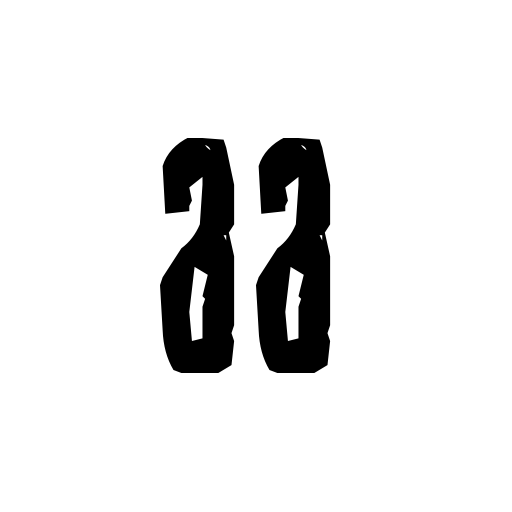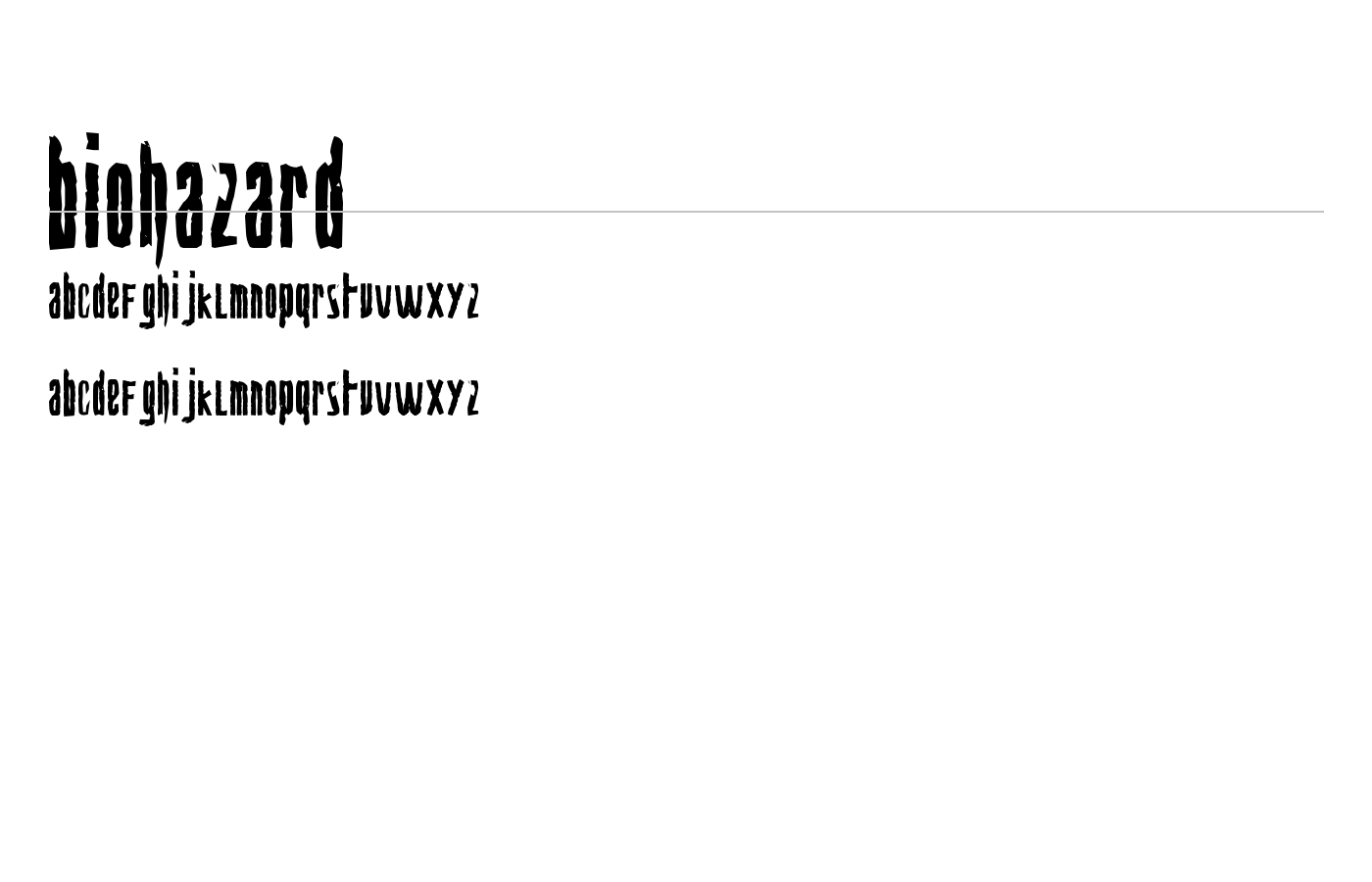
Biohazard Font is a narrow, condensed display typeface with a distressed, irregular texture that gives it a gritty, edgy appearance. Its tall, compressed letterforms and uneven edges evoke a sense of danger or horror, making it ideal for use in thriller or horror-themed designs, posters, and video games. This font works best in large headlines or logos where its unique, intense personality can stand out.
Biohazard Font
About Biohazard Font